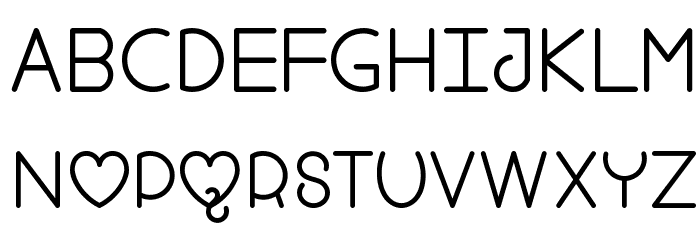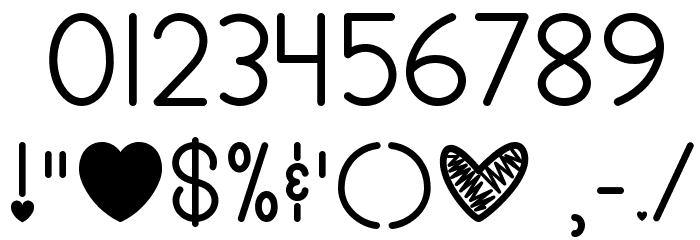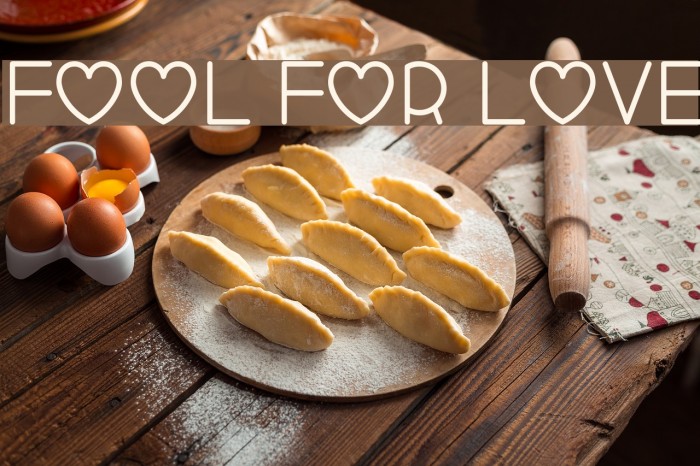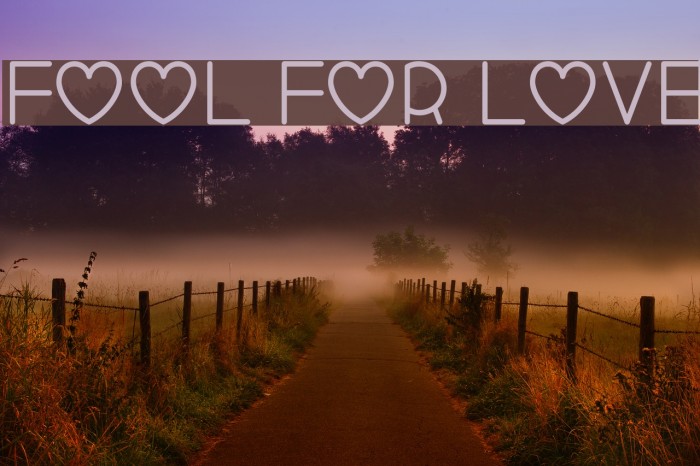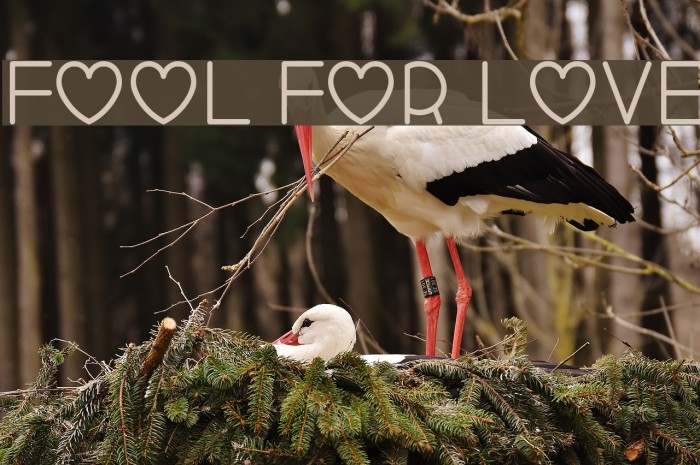
Fool For Love Font
This playful and decorative font features a unique blend of clean lines and whimsical heart motifs integrated into certain characters, such as the 'O' and 'Q'. The uppercase and lowercase letters maintain a consistent, rounded form, giving the font a friendly and approachable appearance. The numerals are straightforward and match the overall style, while the special characters include charming heart designs that add a touch of romance and fun. The font's design is both modern and playful, making it suitable for a variety of creative projects.
A playful, decorative font with heart motifs and rounded characters.
- Proposed Projects: Ideal for wedding invitations, Valentine's Day cards, romantic branding, and playful graphic designs.
- Overall Style: Playful, Modern
- Use Case: Headlines, Logos, Invitations